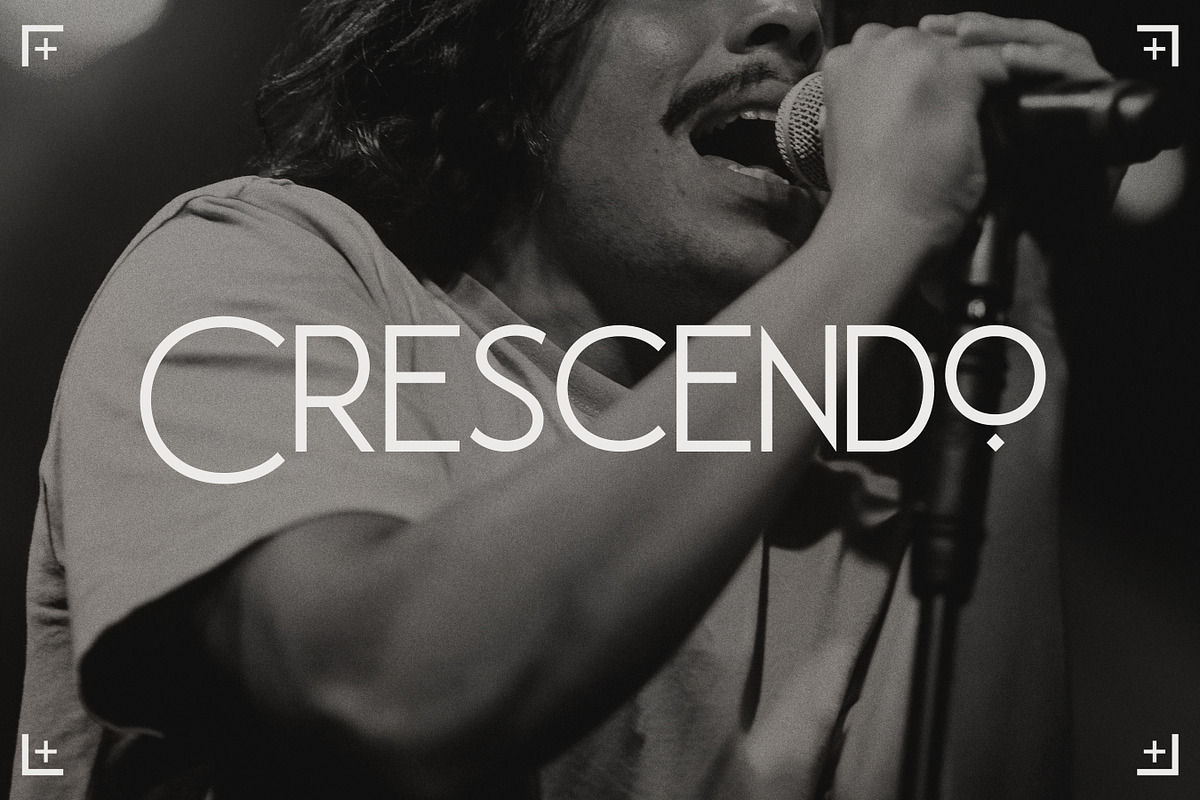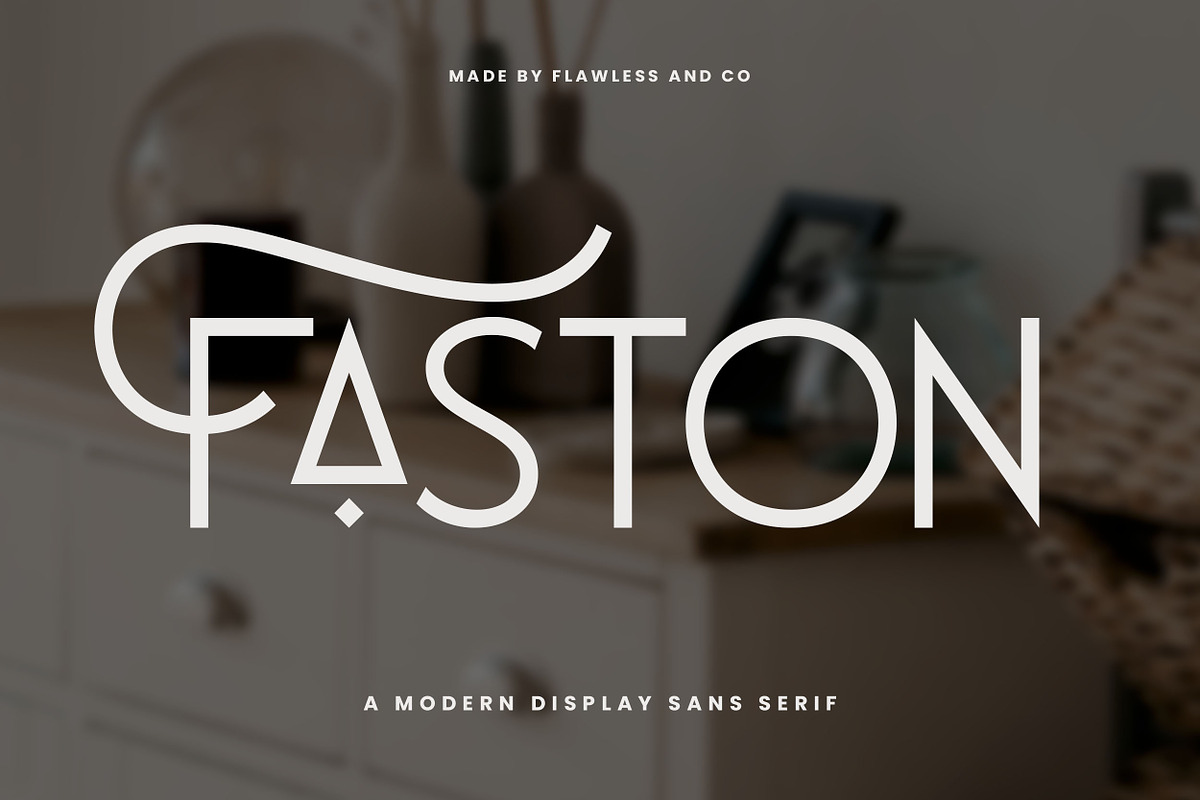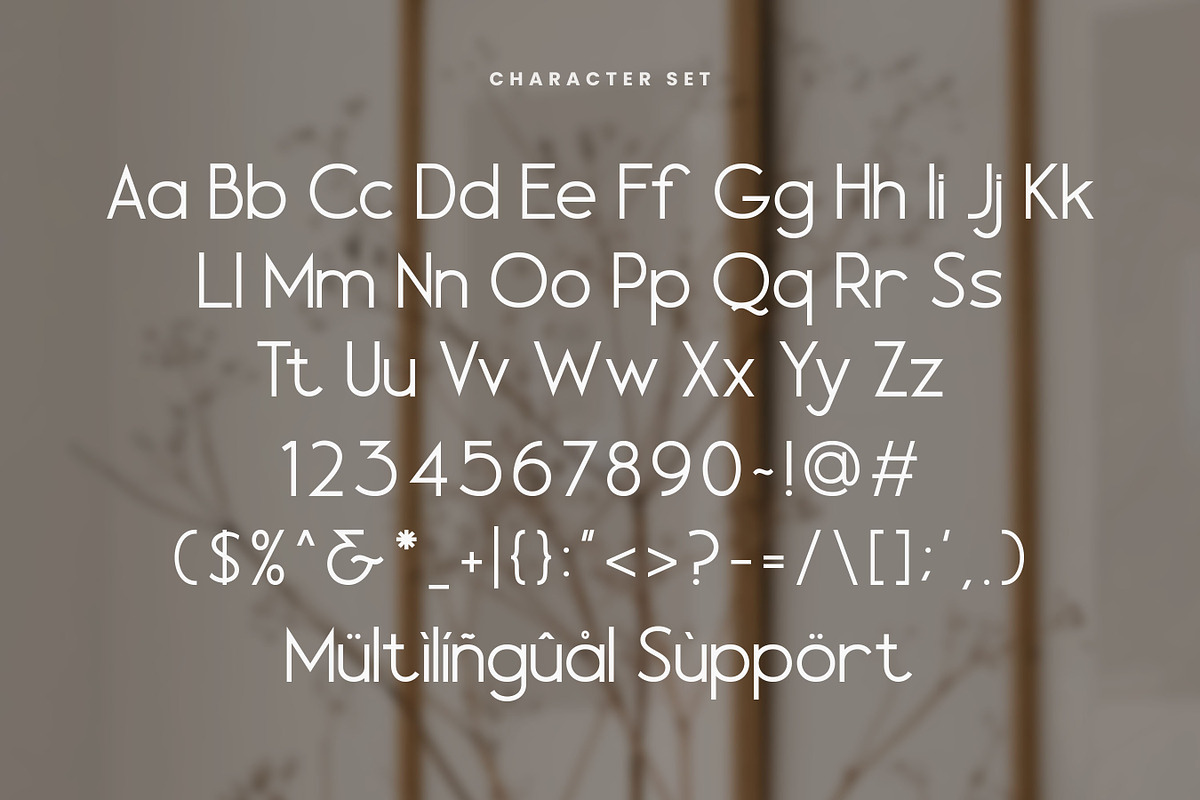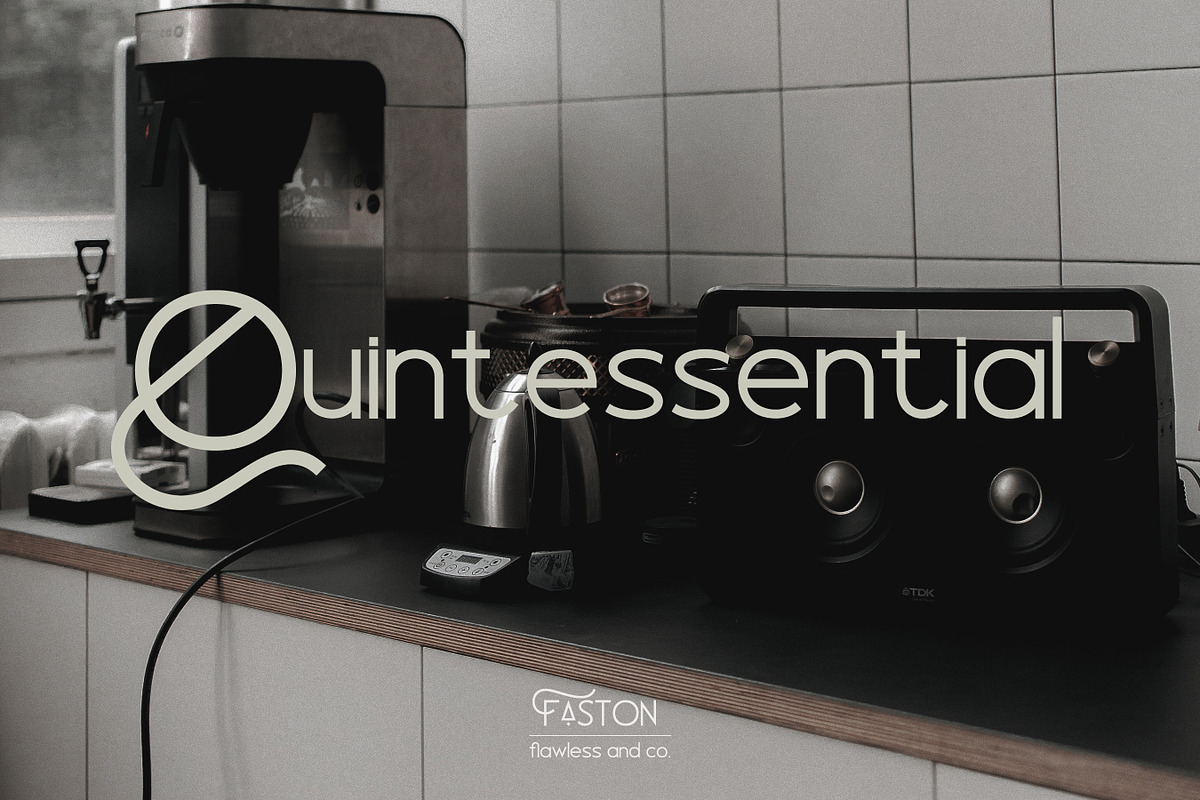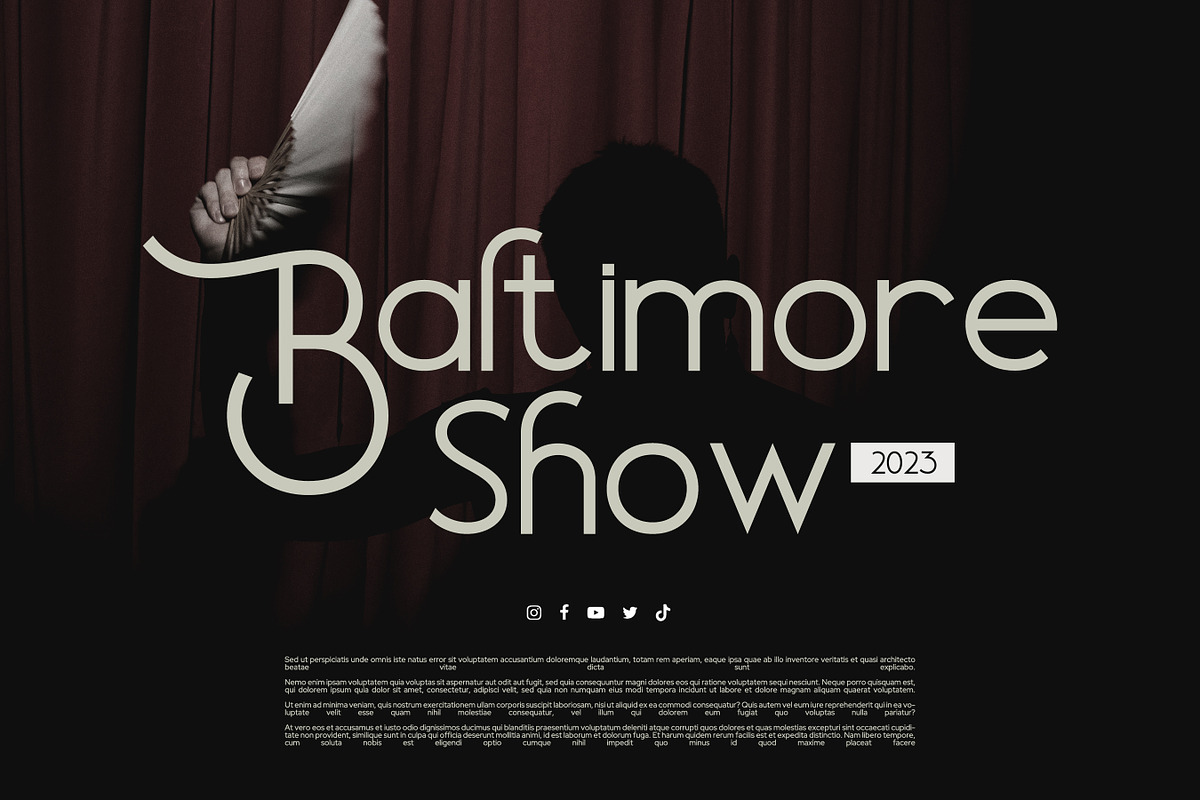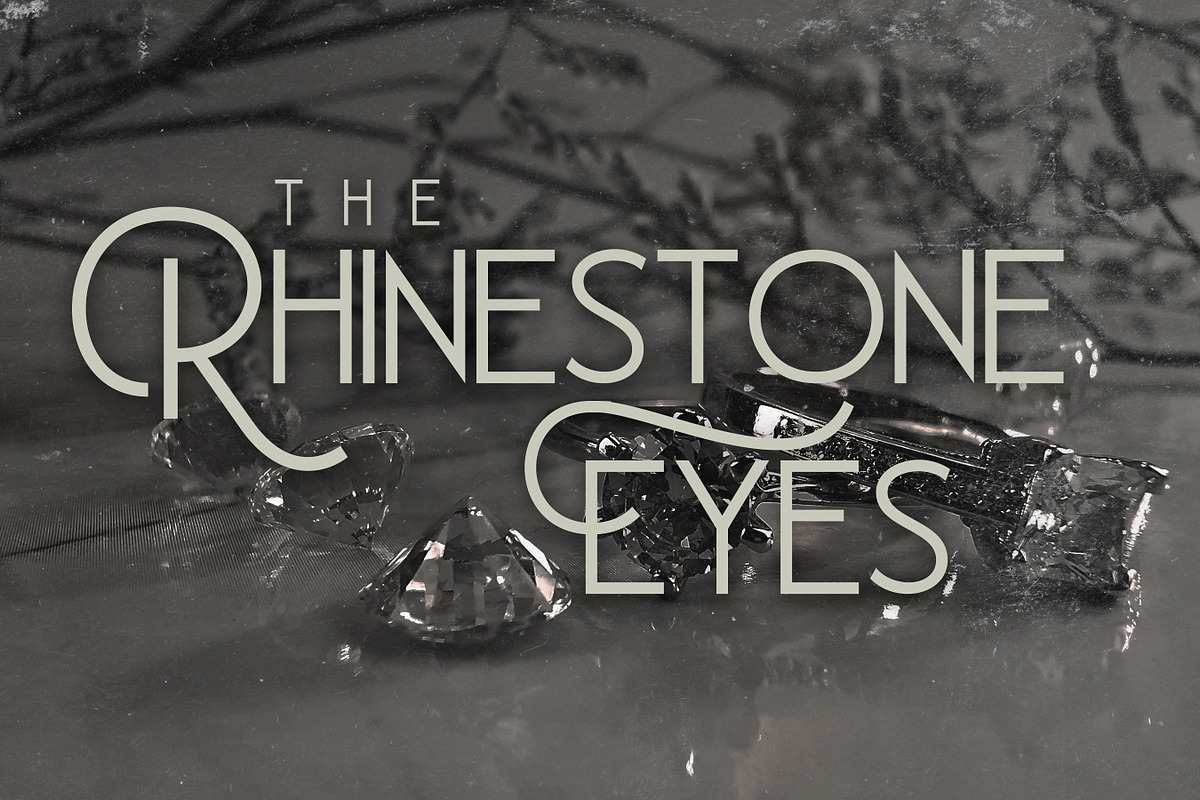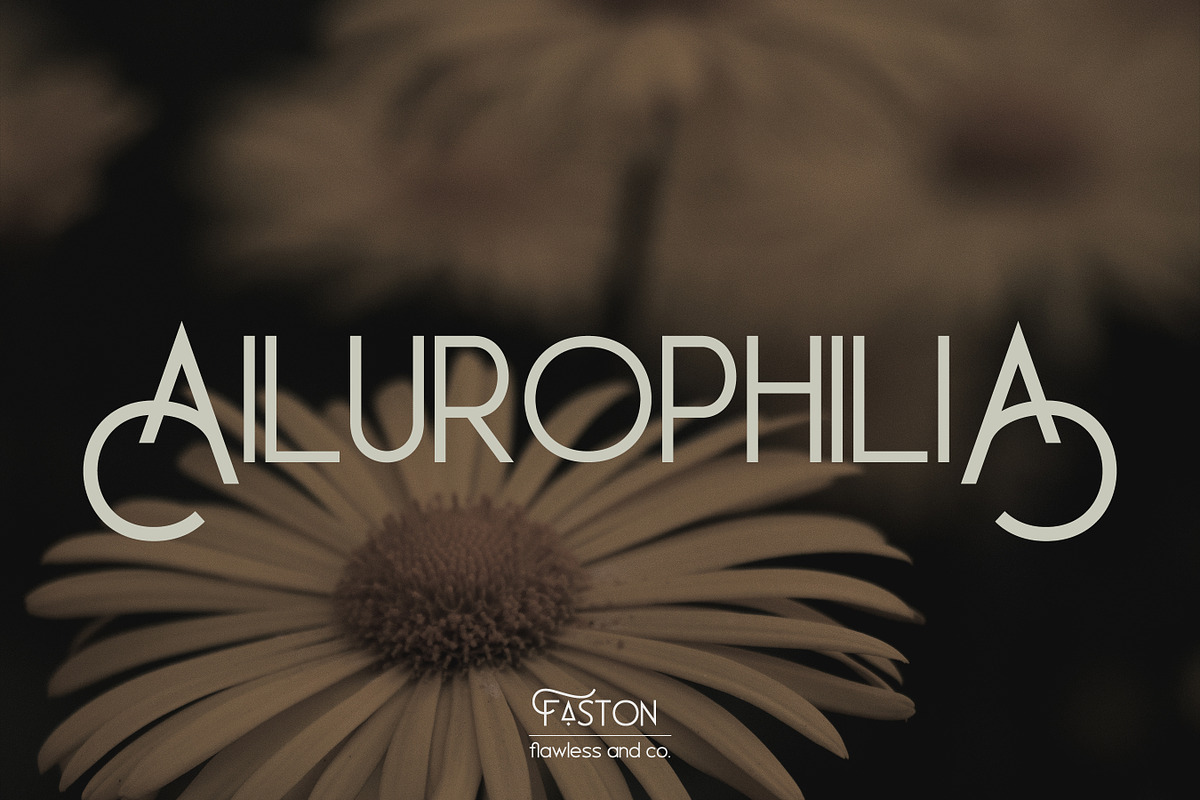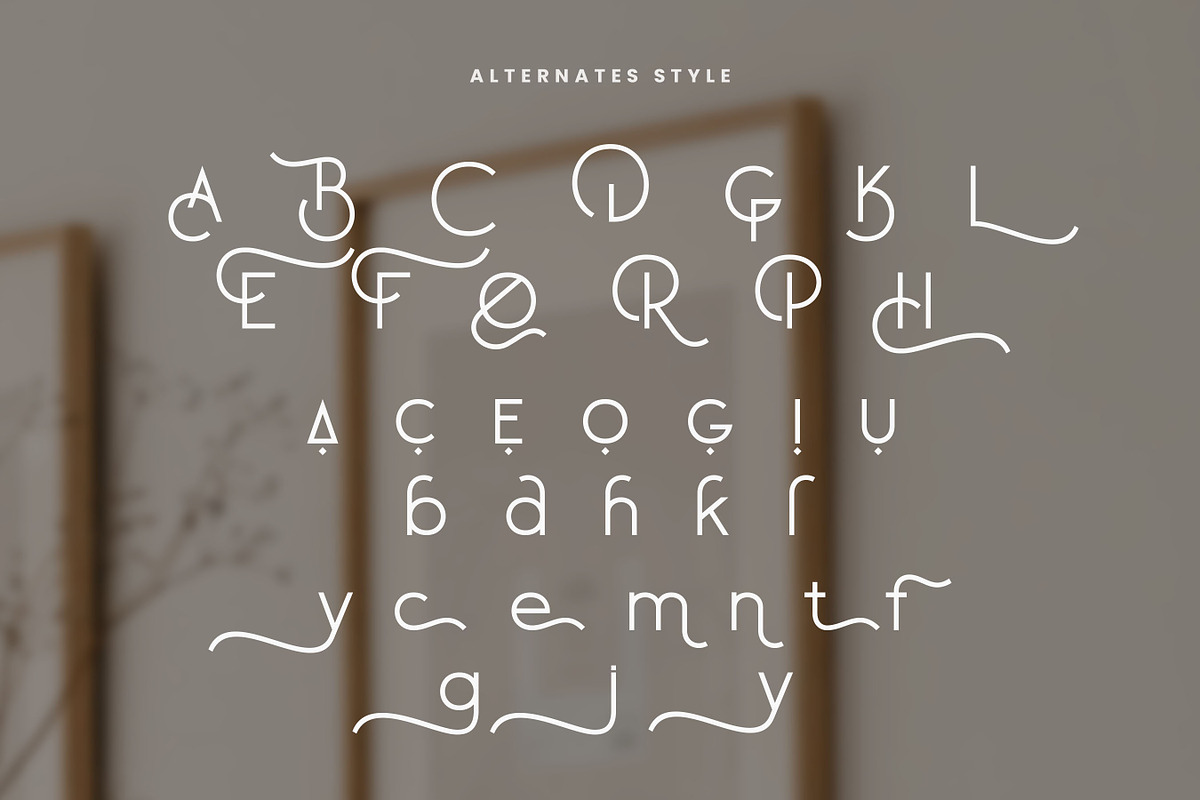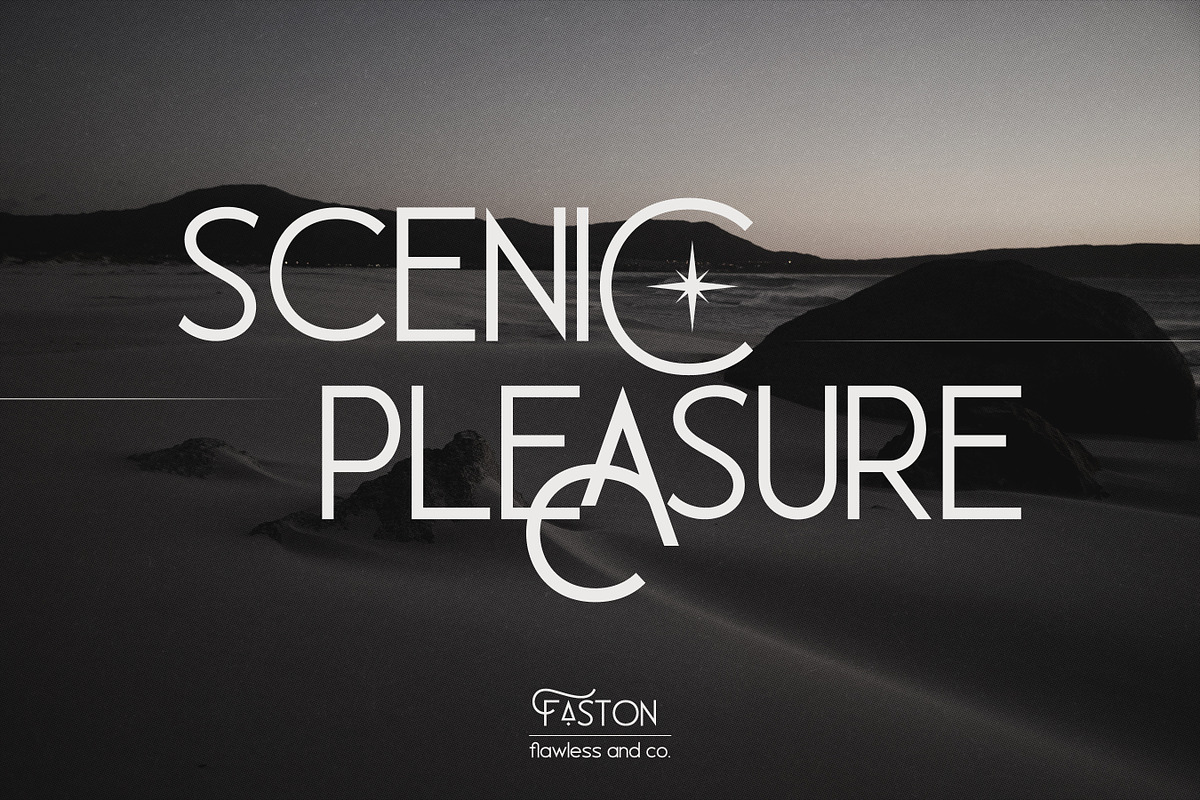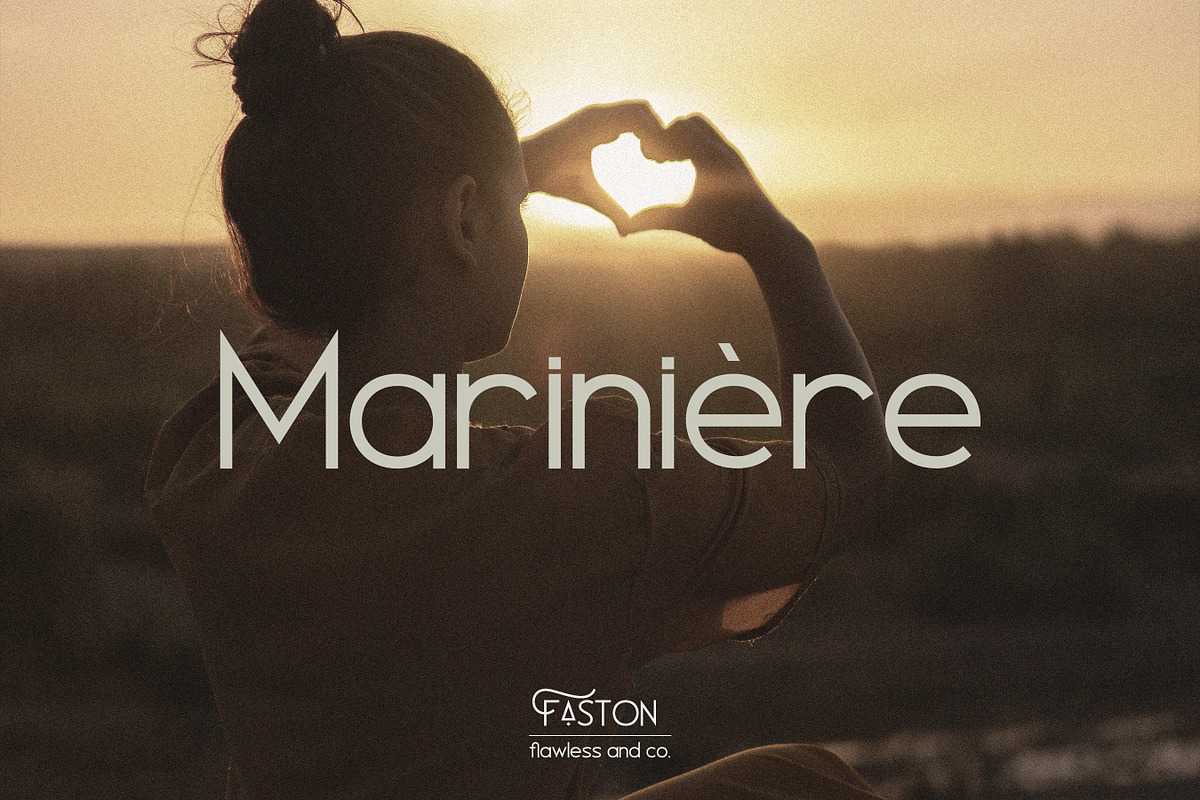
Faston - Modern Display Sans Serif
Introducing "Faston" - A Modern Display Sans Serif Font. Unleash the power of contemporary design with "Faston," a dynamic and versatile display sans serif font that elevates your projects to the cutting edge. With its sleek lines and bold presence, Faston is designed to command attention and leave a lasting impression.
Multilingual Uppercase alphabet A-Z Lowercase alphabet a-z Alternate Character Numbers 0-9 Some punctuation